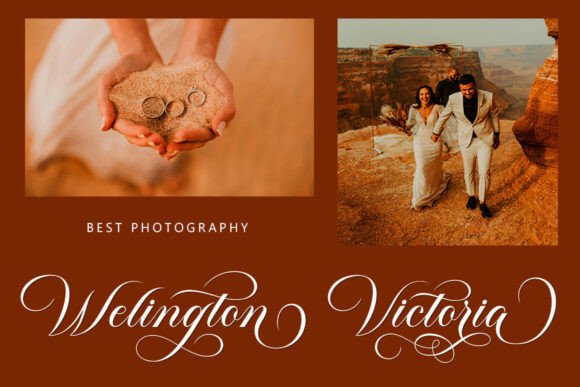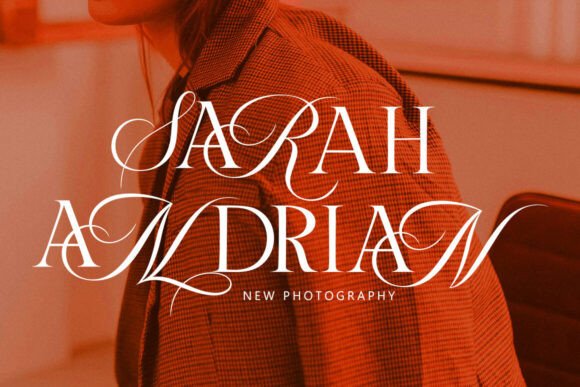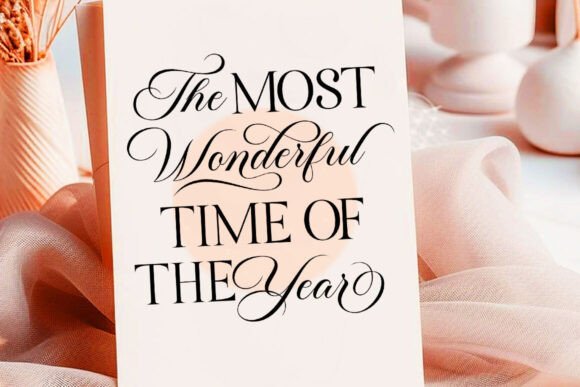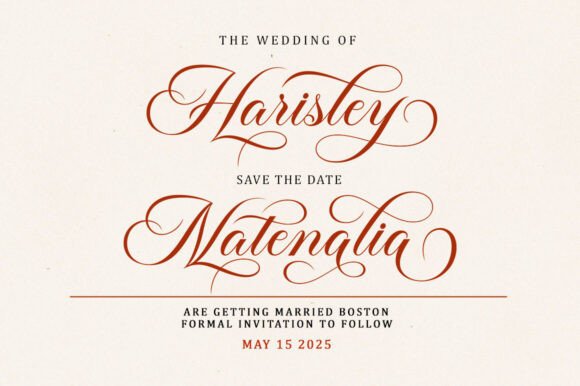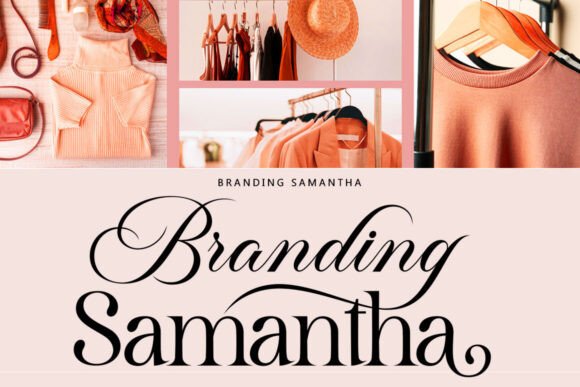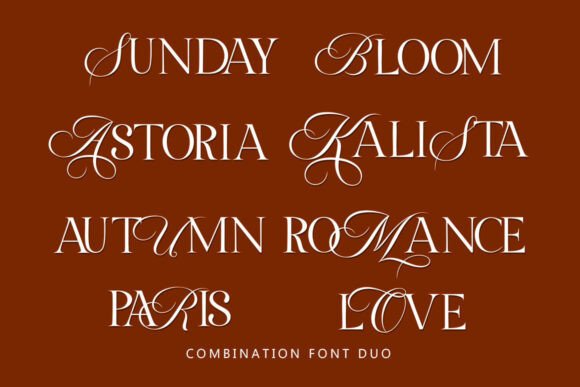
Get Ready to Fall in Love with the Perfect Pair: Besty Serif Font Duo
Have you ever been in the middle of a creative project, staring at a blank page, and suddenly, a spark of inspiration hits you? That’s exactly what happened when we created Besty Serif Font Duo – a luxurious script font and timeless serif font designed to complement each other perfectly. This elegant font combination is not only stunning on its own but also versatile enough to be mixed and matched to create unique and captivating layouts.
As a designer, you know how valuable it is to have a reliable font that can elevate your projects. Besty Serif Font Duo is that game-changer. With its stunning contrast, organic curves, and crisp letters, this font is perfect for a wide range of projects, from luxury branding to modern and vintage designs. Whether you’re working on logos, magazines, signage, or fashion projects, this font is sure to make your designs stand out.
Key Features of Betsy Serif Font
- Unique Characteristics: Elegant and sophisticated design, perfect for creating a professional and elegant look in logos, headings, and body text.
Designer Review: Besty Serif Font
Overall, I’m quite pleased with the Besty Serif Font. It’s a solid addition to any designer’s toolkit. ✨ Here are some of its strengths:
- Legibility: Besty Serif is incredibly easy to read, even at small font sizes.
- Variety: The font comes in a range of weights and styles, making it perfect for complex layouts.
- Classic feel: The serif design gives Besty Serif a timeless, elegant look that’s perfect for publications and corporate materials.
- Lack of expressiveness: While Besty Serif is great for formal content, it can feel a bit stiff for more creative or emotional projects.
- No bold, condensed weights: While the font comes in a range of weights, it’s missing bold and condensed options, which can limit its versatility.
Overall, I think Besty Serif is a great choice for designers who need a reliable, easy-to-read font for formal content. It’s not the most exciting font, but it gets the job done. If you’re looking for something more expressive or versatile, you might want to consider other options.
Besty Serif Font: A Practical Application Guide
Tips for Getting the Most Out of Besty Serif Font
For optimal results, use Besty Serif Font in combination with a clean and simple design aesthetic.
Experiment with different font sizes and colors to create visual hierarchy and emphasis.
Pair Besty Serif Font with other elegant fonts or sans-serif fonts for a unique look.
Besty Serif Font is ideal for:
Business cards and letterheads
Magazine and newspaper articles
Branding and marketing materials
Alternatives to Betsy Serif Font
Playfair Display is an elegant, high-end serif font that is ideal for luxury brands, wedding invitations, and high-end advertising. It is highly ornate and decorative, with subtle flair and sophistication. Playfair Display is a more luxurious and elaborate font compared to Betsy Serif Font, making it suitable for special occasions and high-end design projects.
Merriweather is a classic, traditional serif font that is great for body text, academic papers, and formal documents. It is clean, legible, and easy to read, making it an excellent choice for long-form content. Merriweather is a more straightforward and traditional font compared to Betsy Serif Font, making it suitable for formal and professional design projects.
Georgia is a serif font that is designed for reading on screens, making it an excellent choice for digital design projects. It is clear, readable, and easy to use, with a classic and timeless feel. Georgia is a more modern and versatile font compared to Betsy Serif Font, making it suitable for a wide range of design projects.
Yes, Besty Serif is available in four weights: Light, Regular, Medium, and Bold. Each weight has its unique characteristics, allowing you to choose the perfect style to match your design needs. Additionally, Besty Serif supports various font styles, including italic and bold italic.